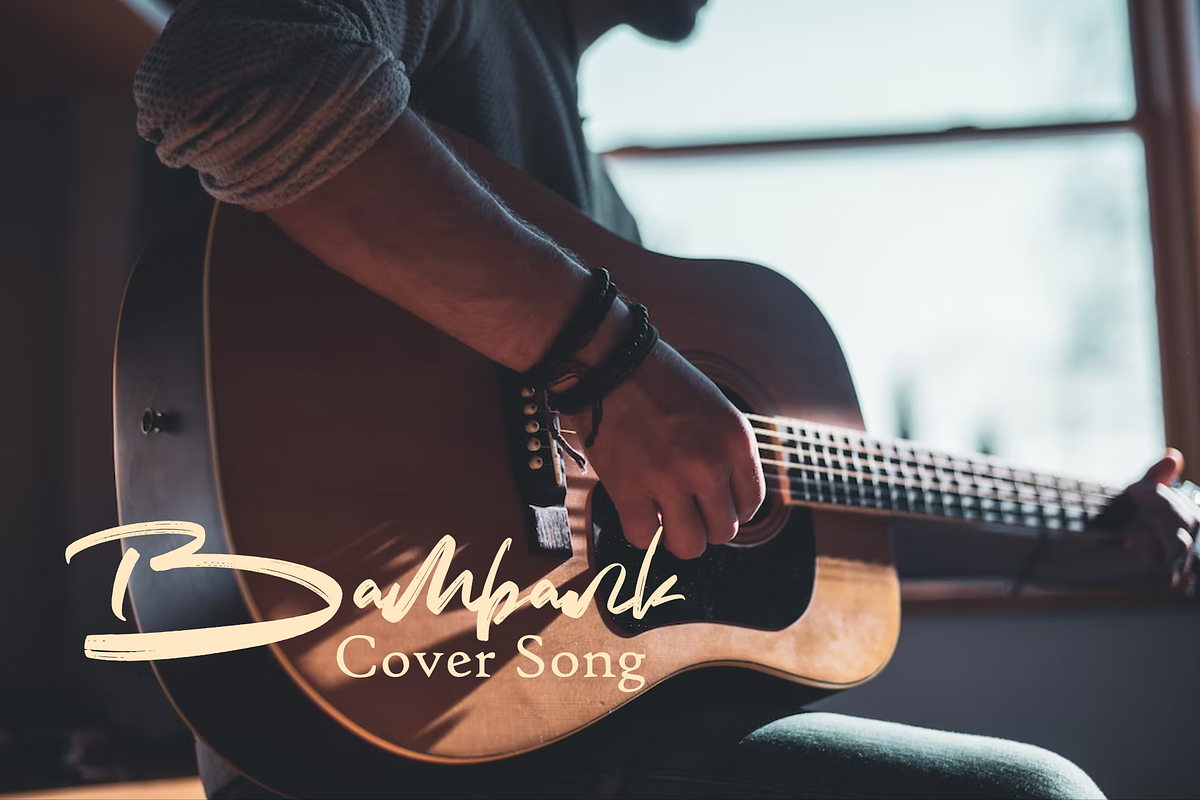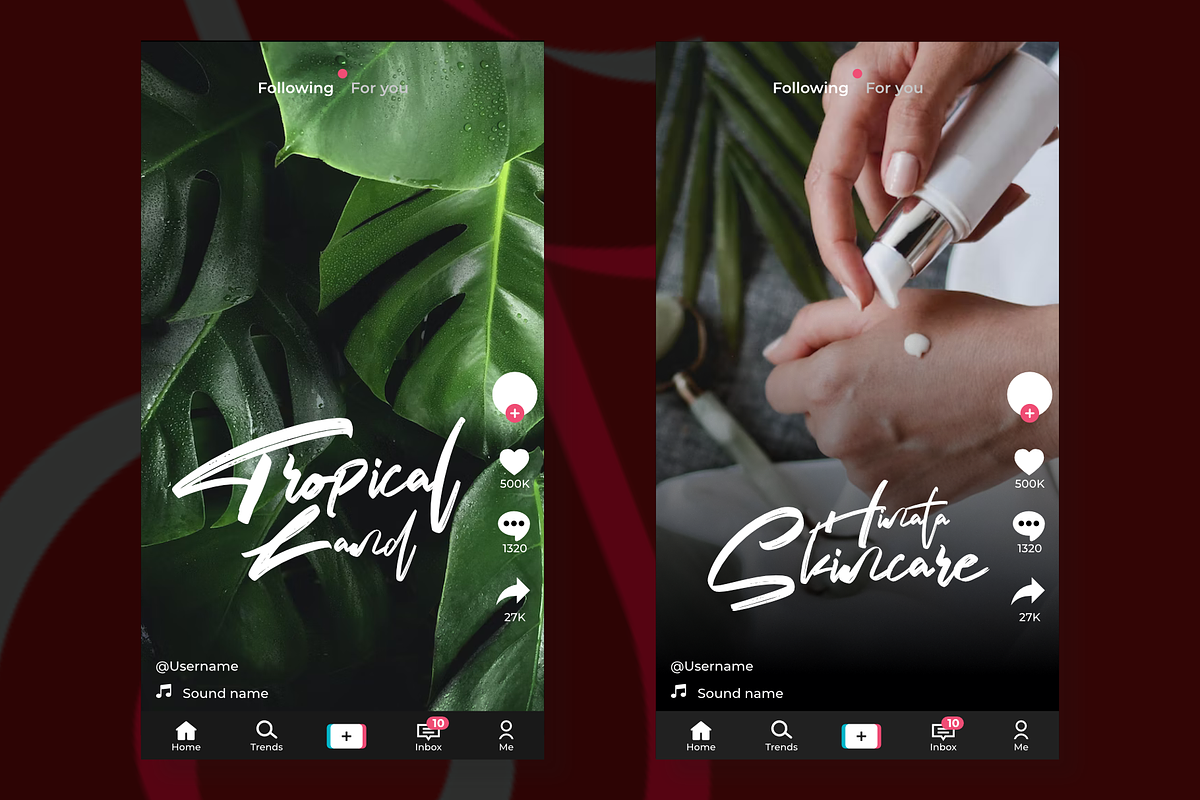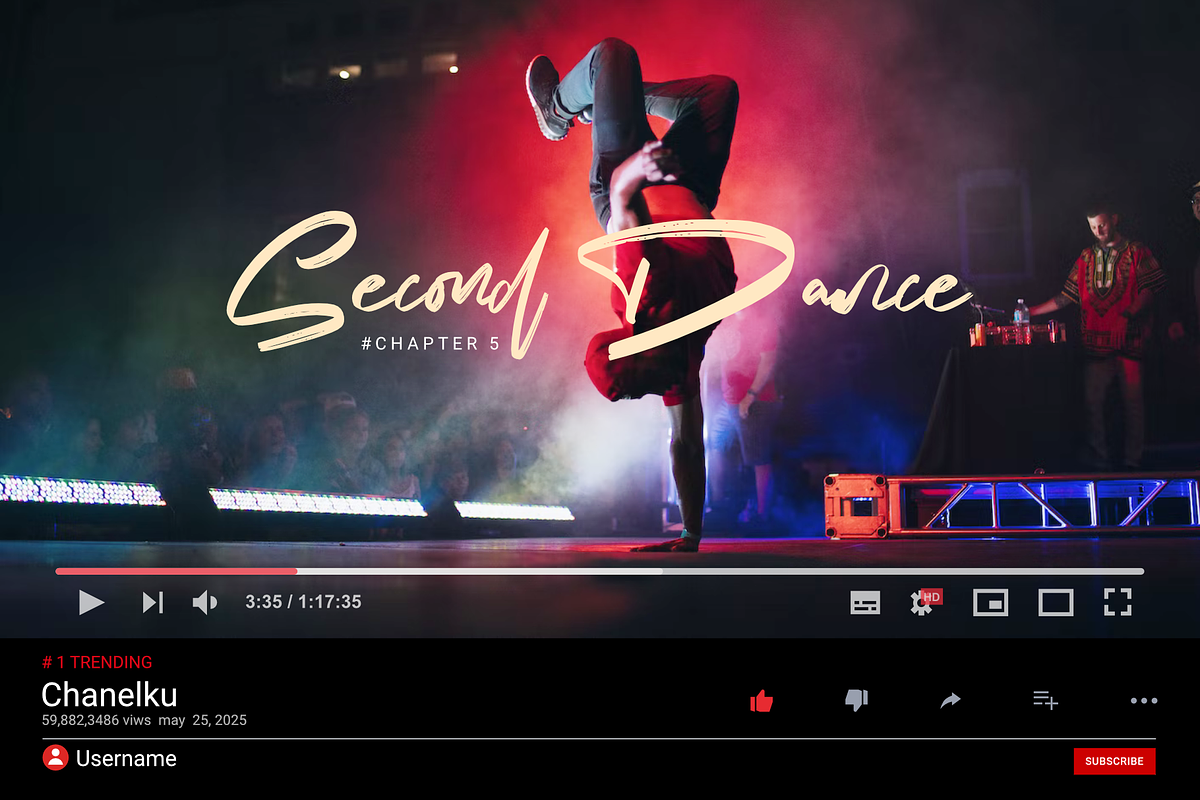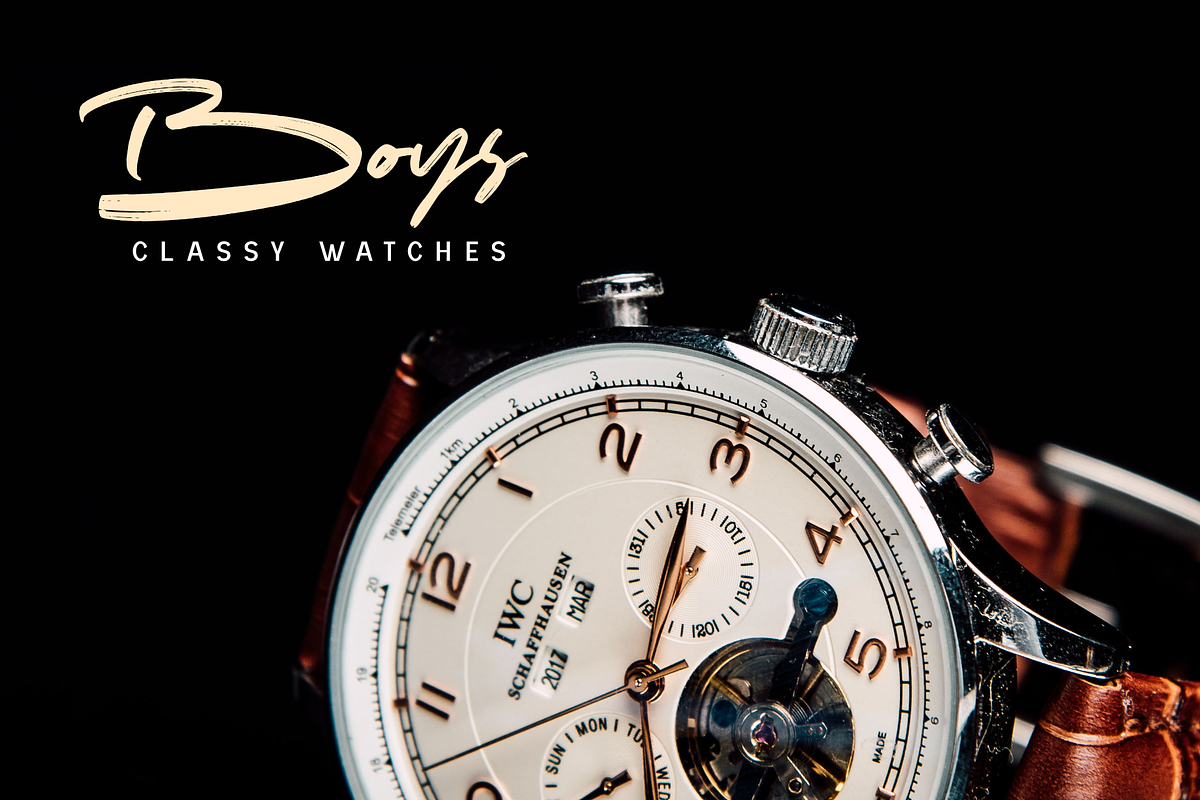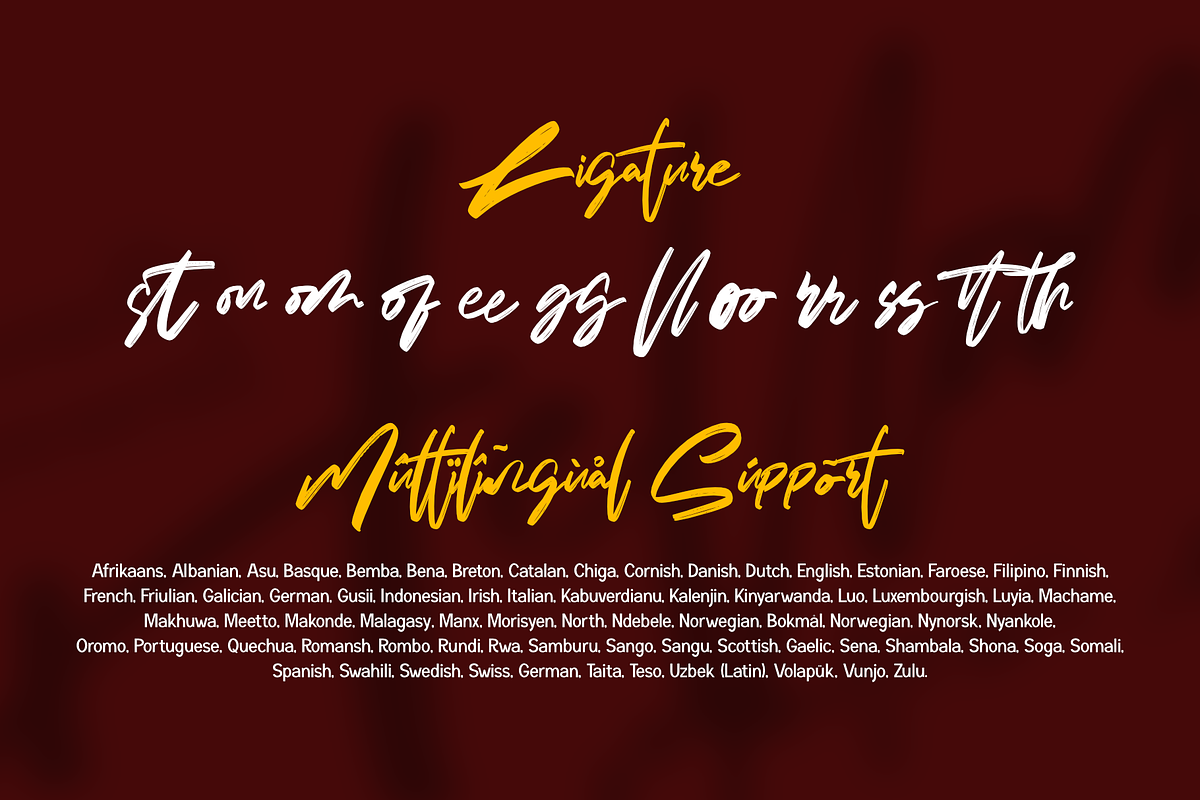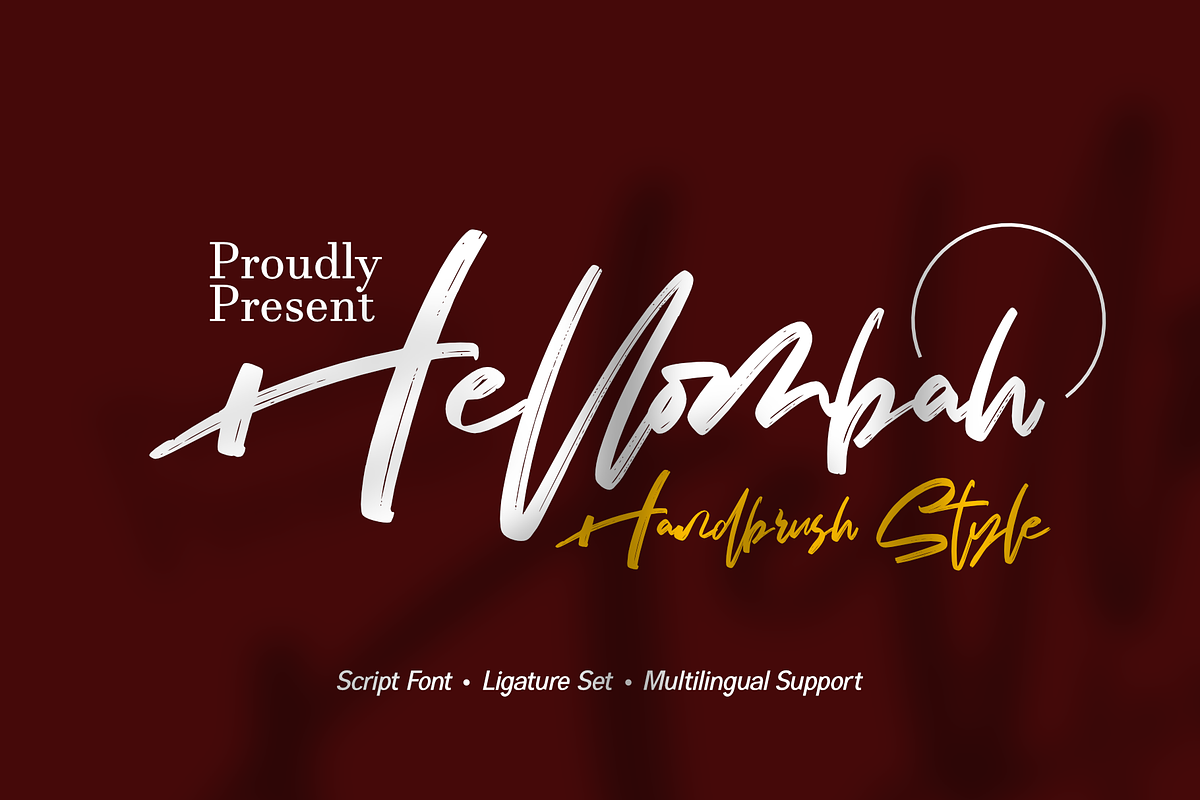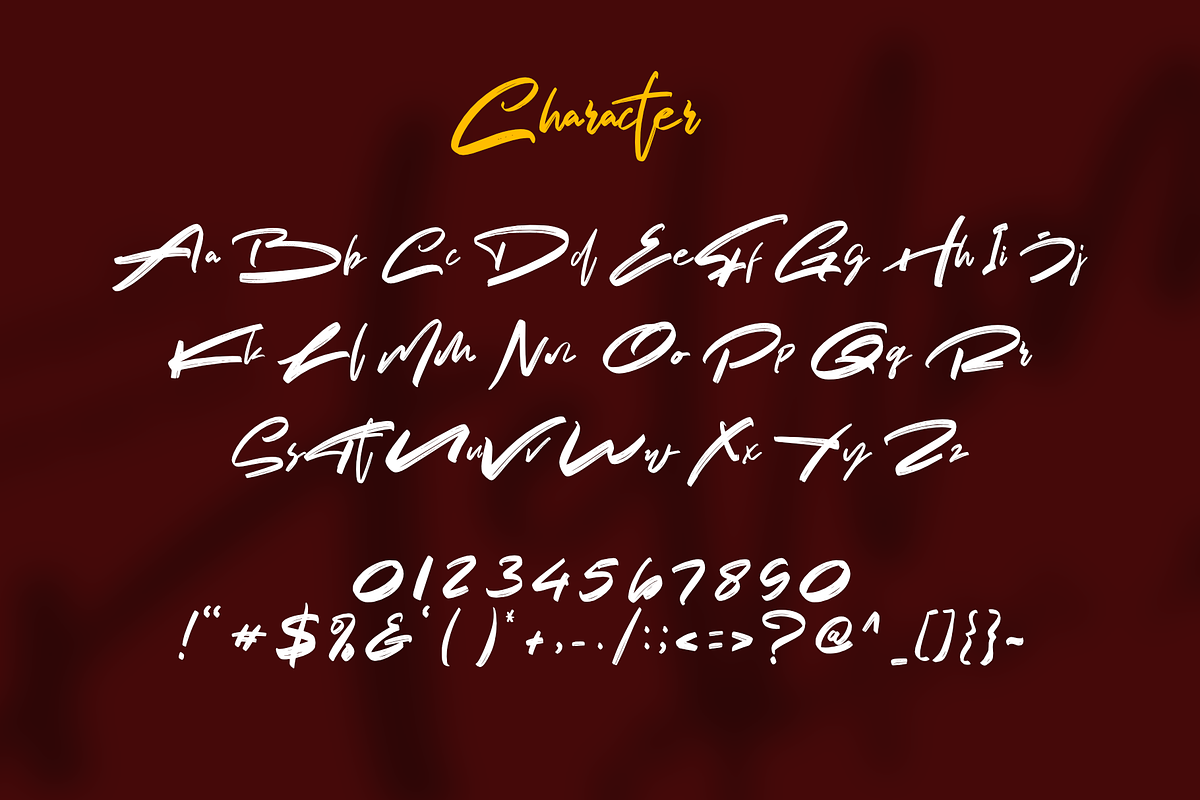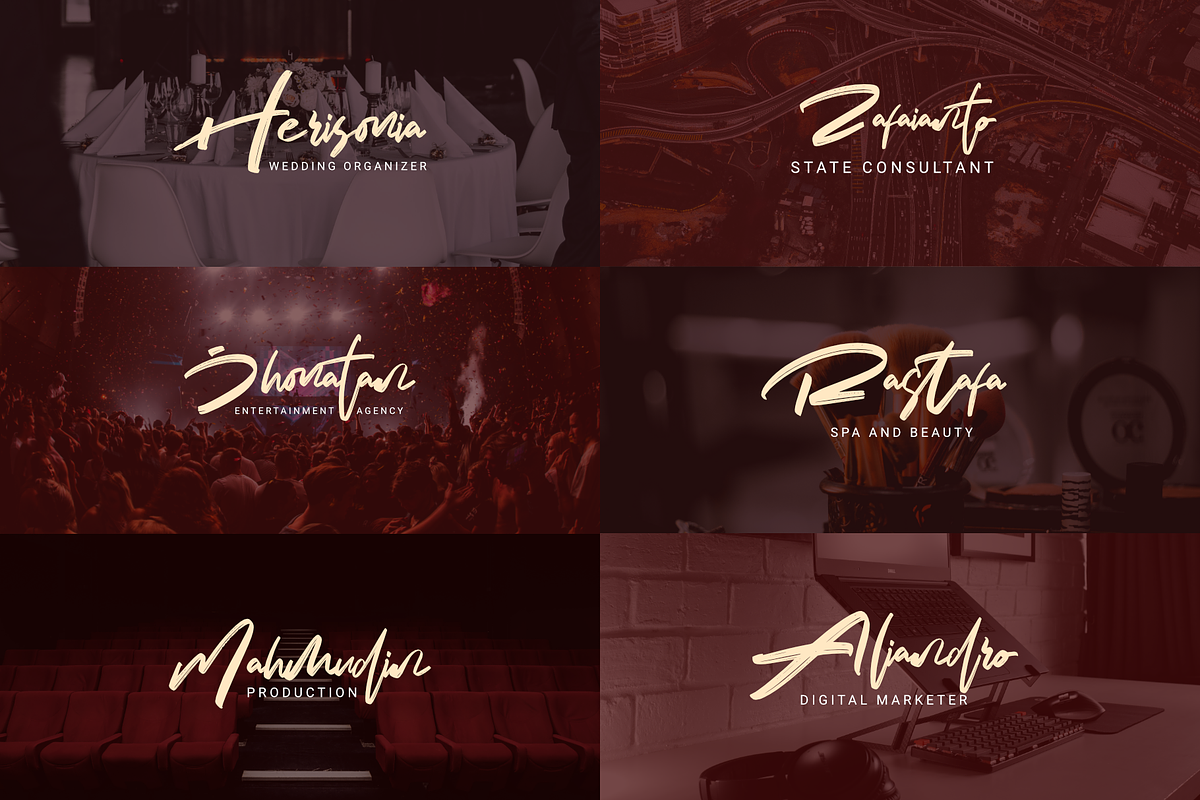
Hellombah
Hello Creative people! We've created a new font called Hellombah, an elegant brush font tailor-made for you.
Hellombah Cool Handbrush font, created for any professional branding project, like signature logo, Youtube Title, TikTok, watermark, wedding invitation, branding, promotion, product packaging, etc. Each letter has an Elegant touch.
The Hellombah font includes a complete set of handwritten upper and lower case letters, numbers, punctuation, and ligatures. This font provides a realistic handwritten style. Be Perfect with the right font!